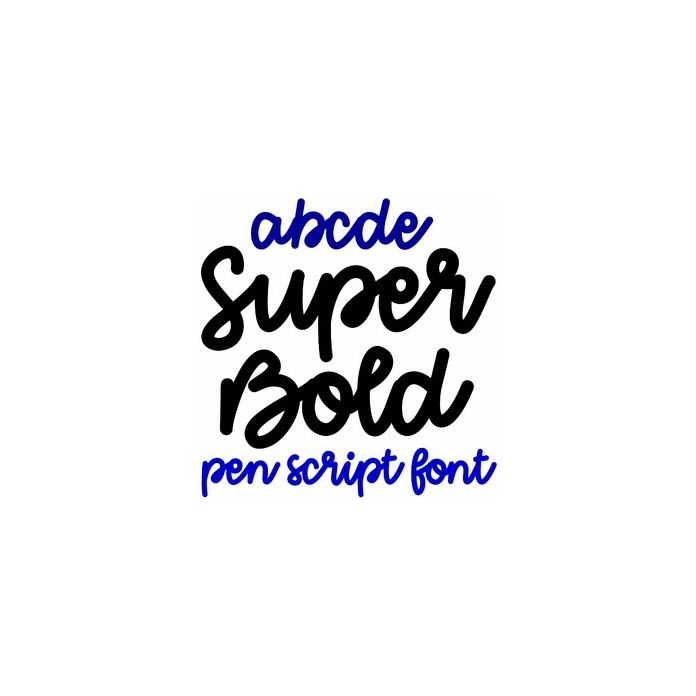
super bold pen script font
Super Bold Pen Script is a fun cursive handwriting font for projects, crafts, and cards. Includes alphabet, numbers, and punctuation.